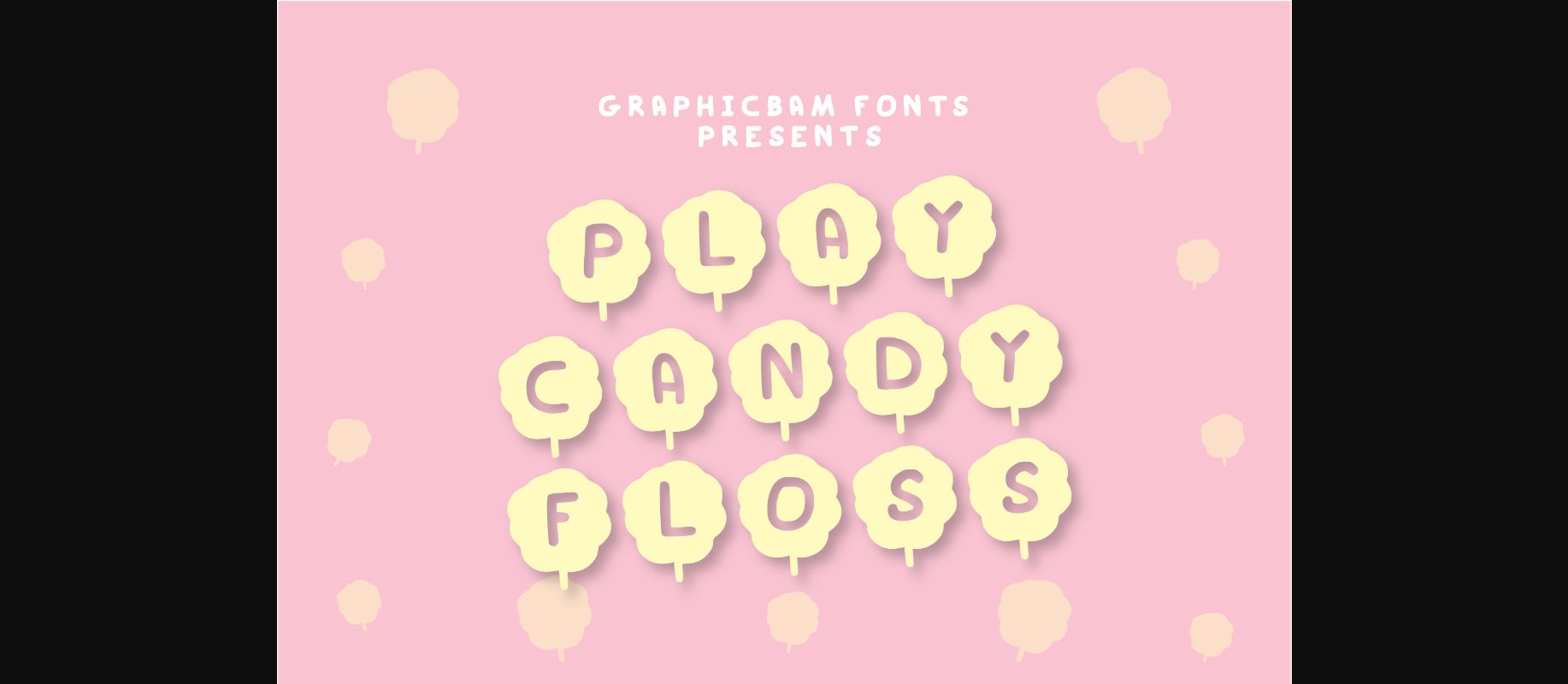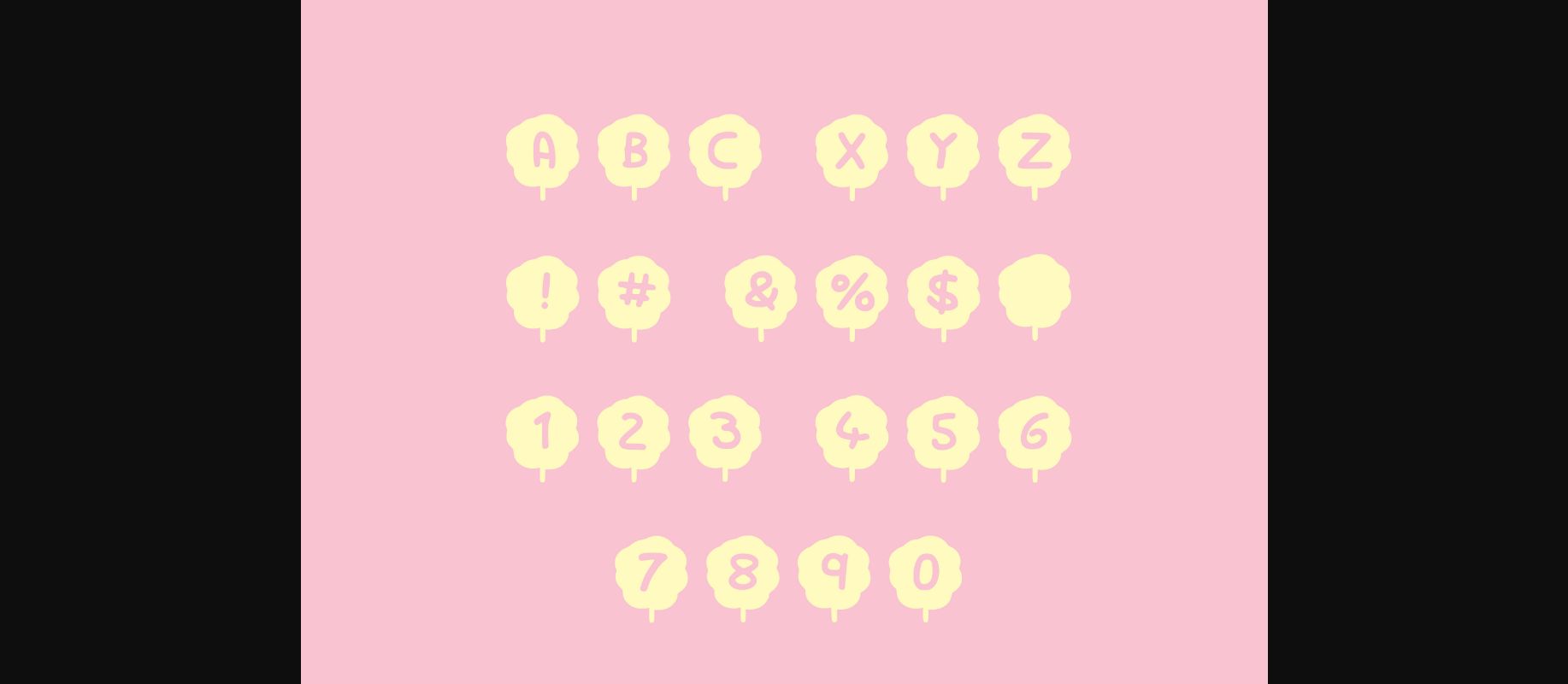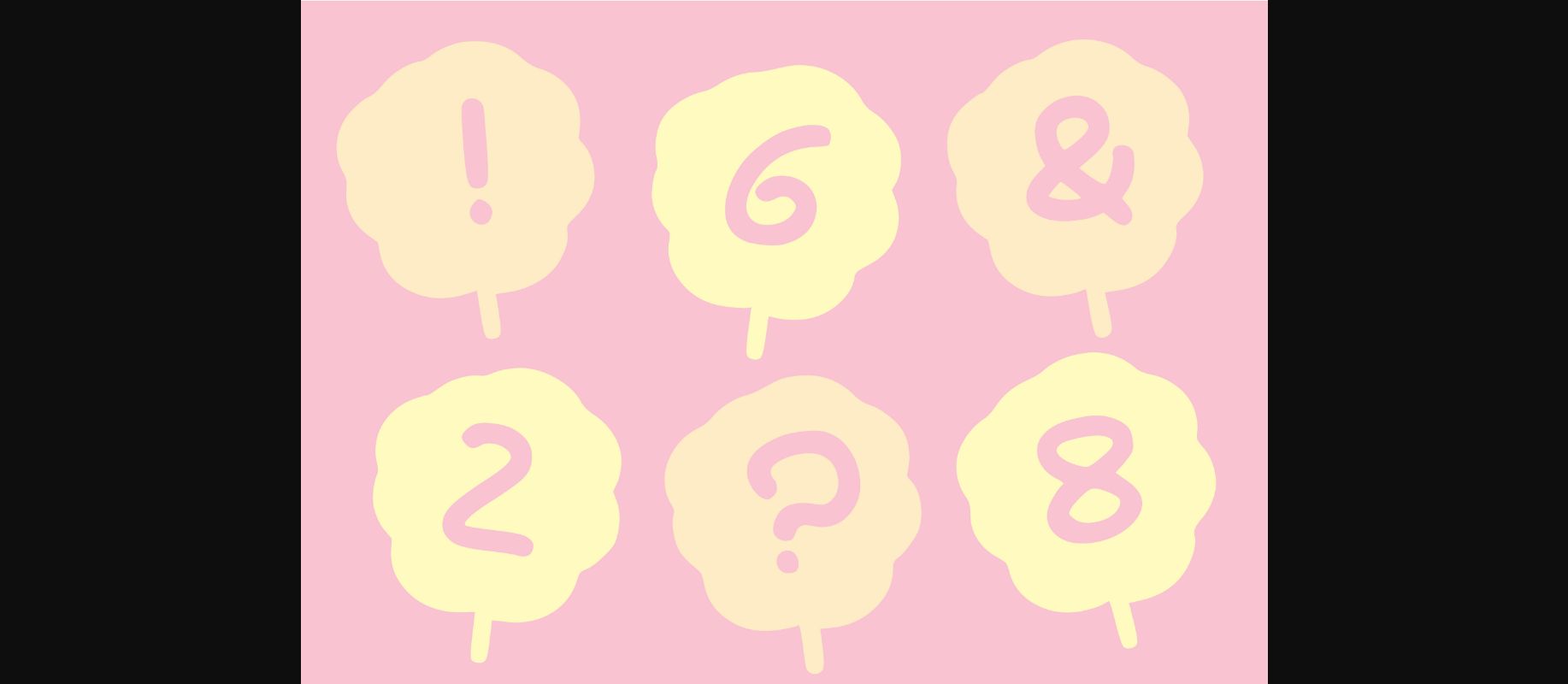
Play Candy Floss Font
About Play Candy Floss Font
Play Candy Floss is a cool looking and interesting decorative font, featuring a candy on each character. Whether you’re using it for crafts, digital design, presentations, or making greeting cards, it’s the perfect choice.